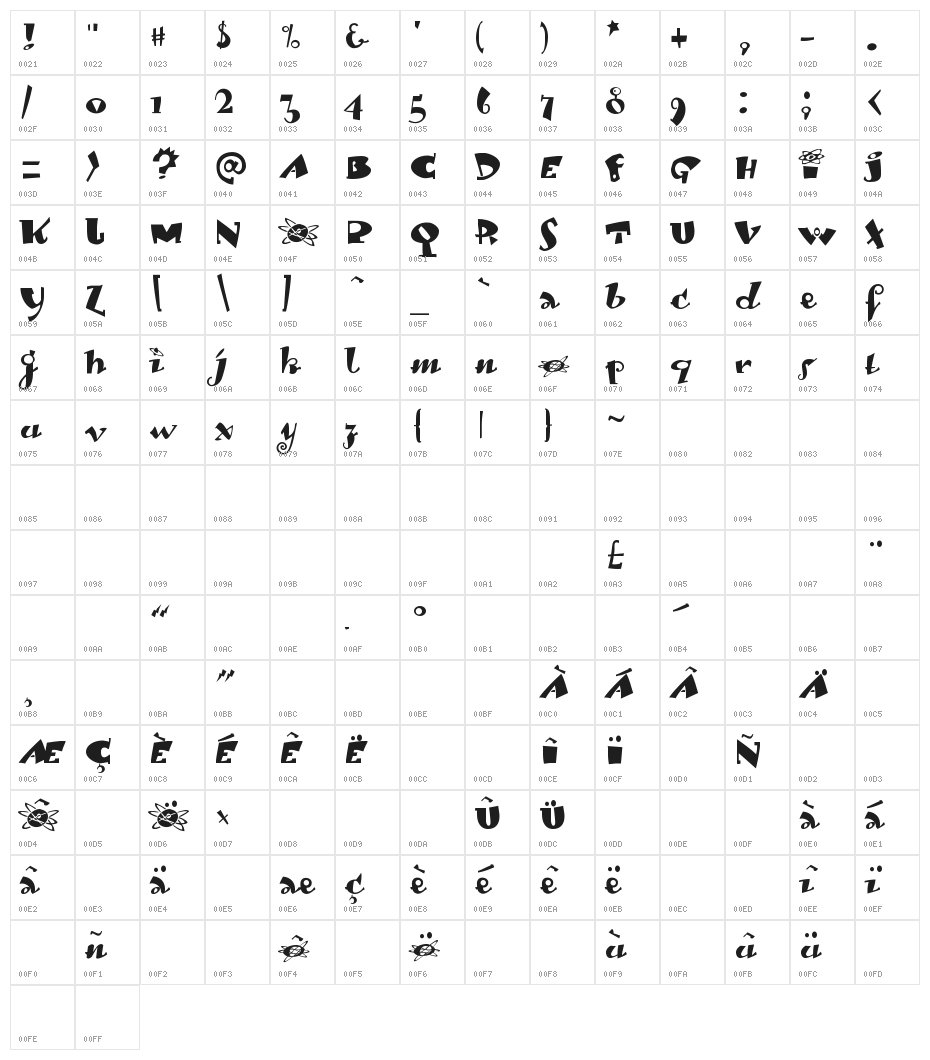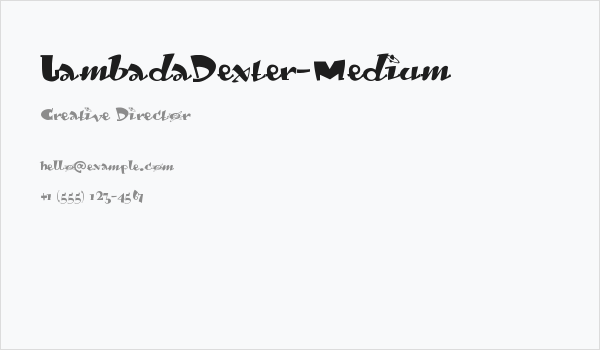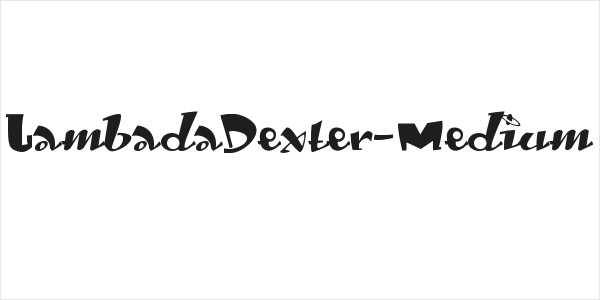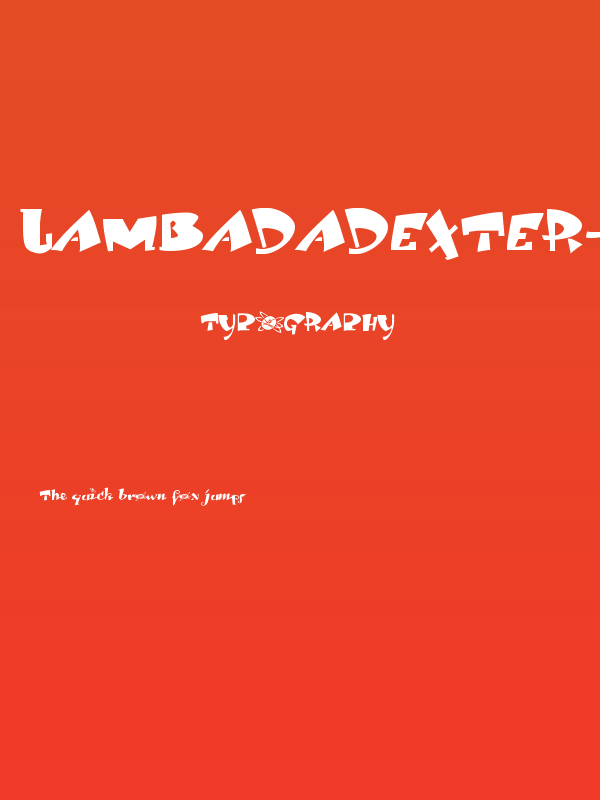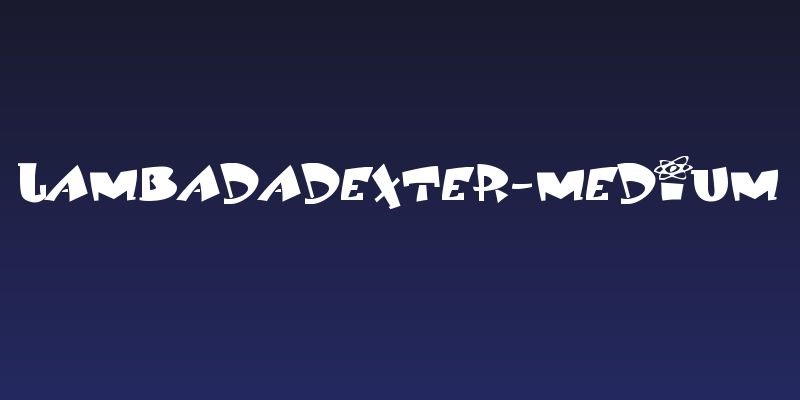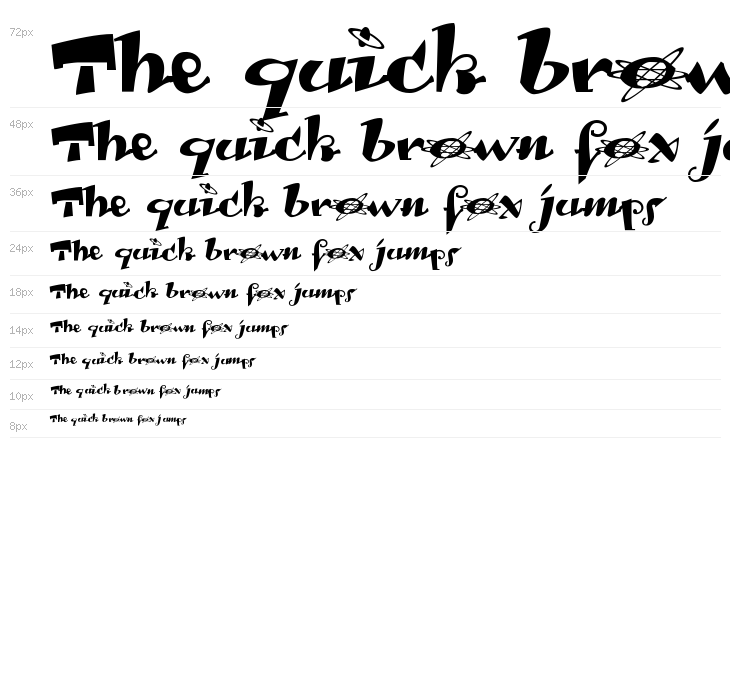
LambadaDexter-Medium Font
LambadaDexter-Medium Description
This font features a playful and dynamic style, characterized by its bold and whimsical letterforms. Each character is uniquely crafted with a mix of sharp angles and smooth curves, giving it a lively and energetic appearance. The uppercase letters incorporate creative elements, such as atomic symbols and stars, adding a decorative flair. The lowercase letters maintain a consistent style with a slightly more fluid and cursive influence. Numbers and special characters continue the theme with bold strokes and imaginative designs. Overall, this font exudes a sense of fun and creativity, making it ideal for projects that require a distinctive and eye-catching typeface.
| Proposed Projects | Ideal for children's books, playful branding, creative posters, and event invitations. |